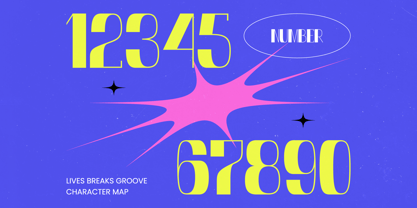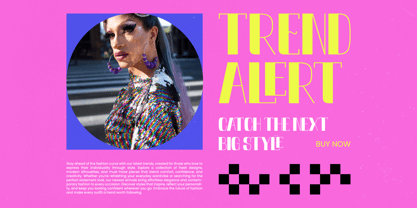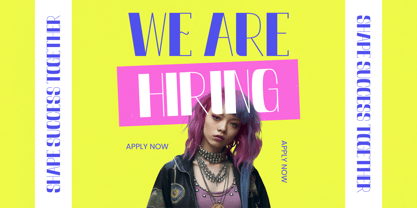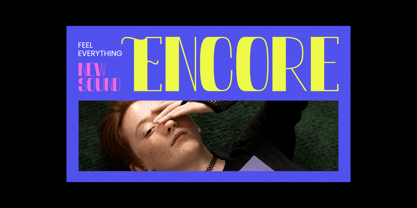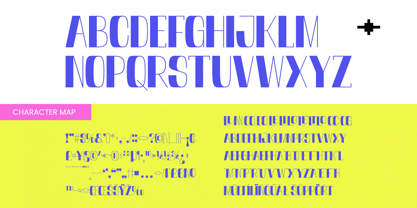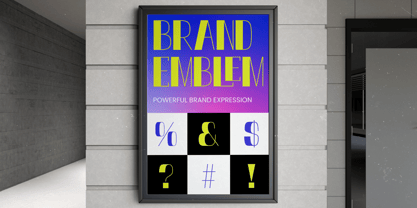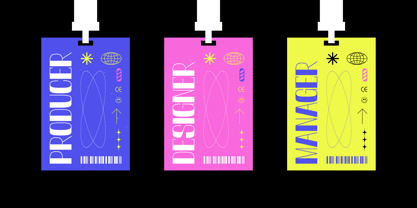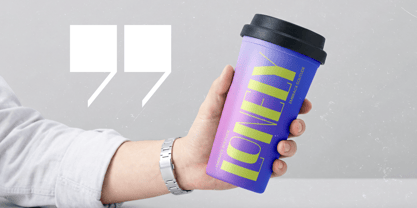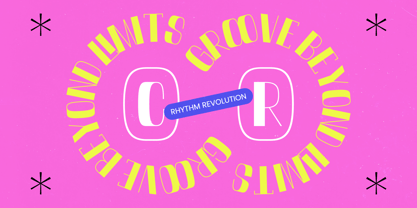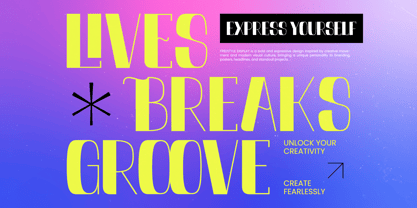
Lives Breaks Groove
by Timelesstype Studio
The Lives Breaks Groove Font Family was designed by Heru Utama Putra and published by Timelesstype Studio. Lives Breaks Groove contains 2 styles and family package options. More about this family
Elevate your creative vision with the electrifying presence of Lives Breaks Groove - Freestyle Display. This typeface isn't just a set of characters; it is a rhythmic movement captured in digital form, designed to command attention from the very first glance.
Inspired by the fluid motion of modern street culture and the precision of high-end editorial layouts, this font captures a unique balance between raw energy and sophisticated structure. It reflects the vibrant atmosphere of contemporary art galleries where chaos meets calculated design.
With its striking silhouettes and unconventional geometry, this modern serif display alternative offers a powerful branding impact for any project. The luxury typography feel is achieved through its high-contrast serif elements, making it an essential editorial font for designers who refuse to blend in.